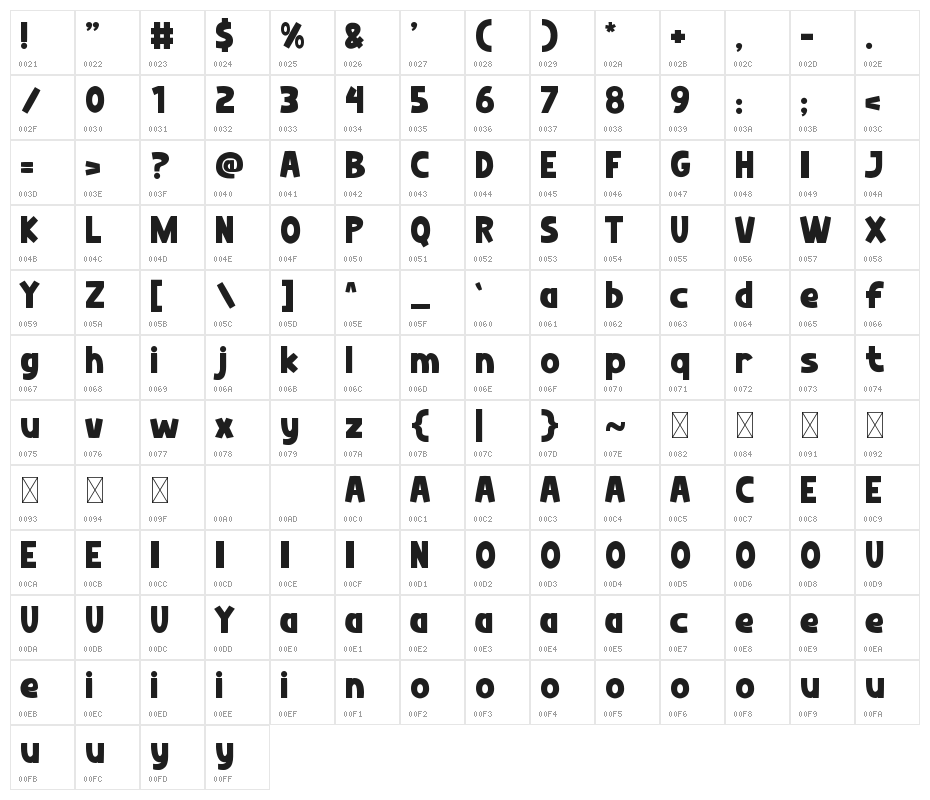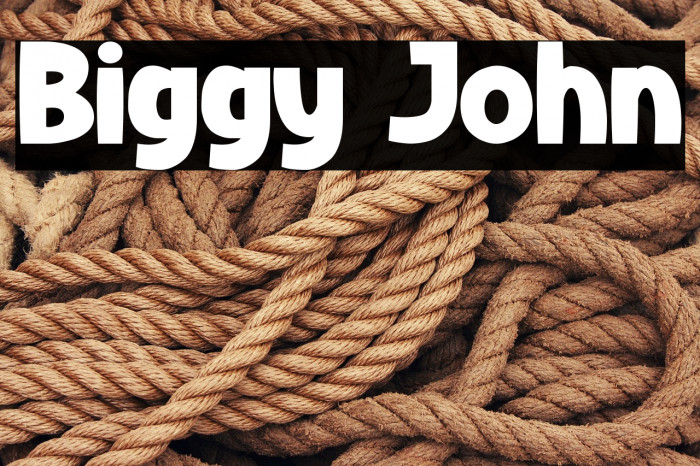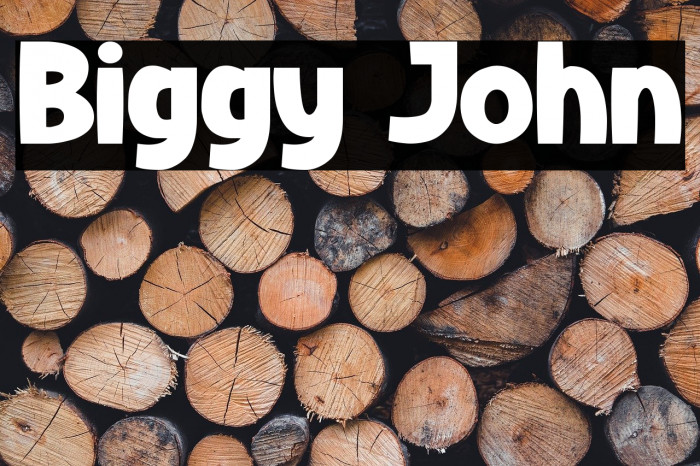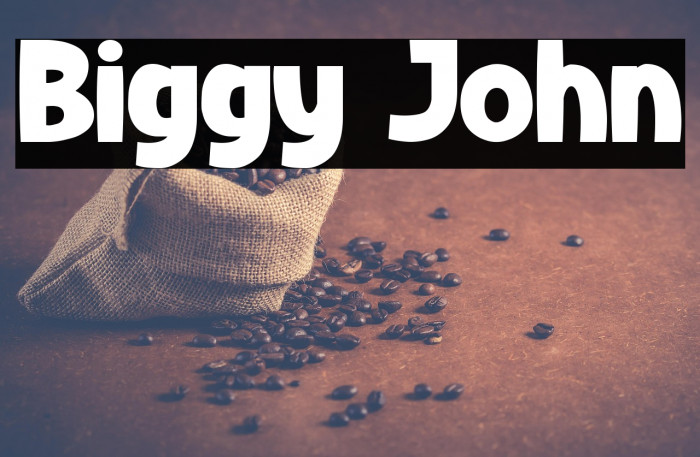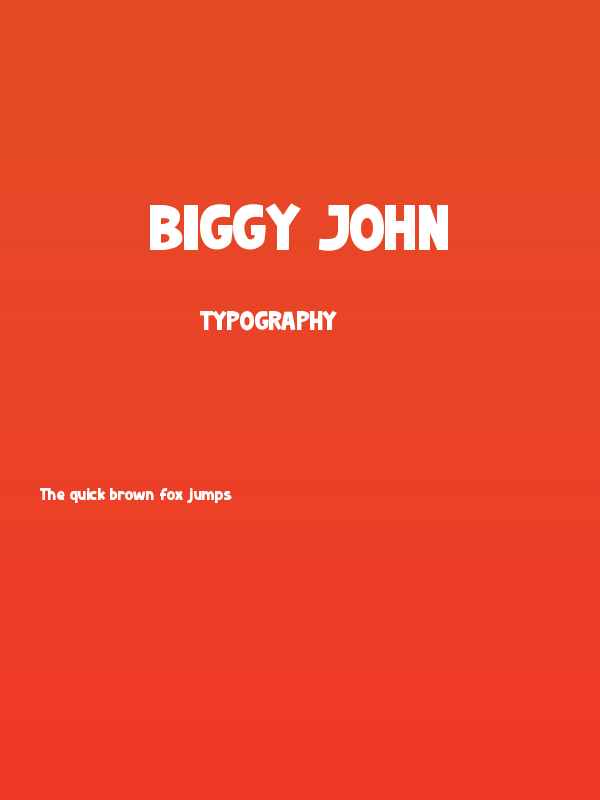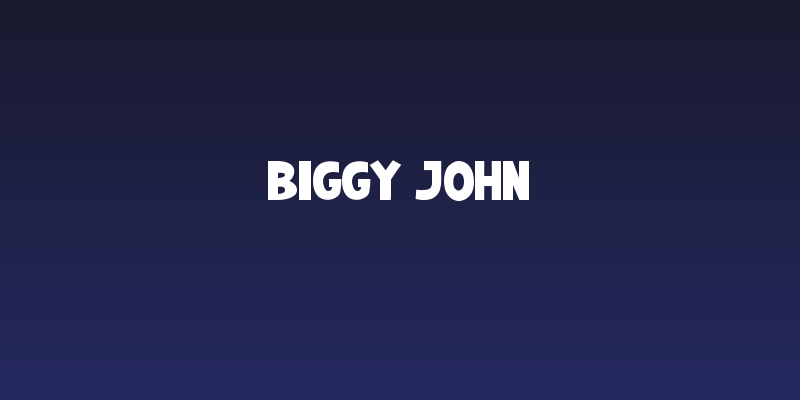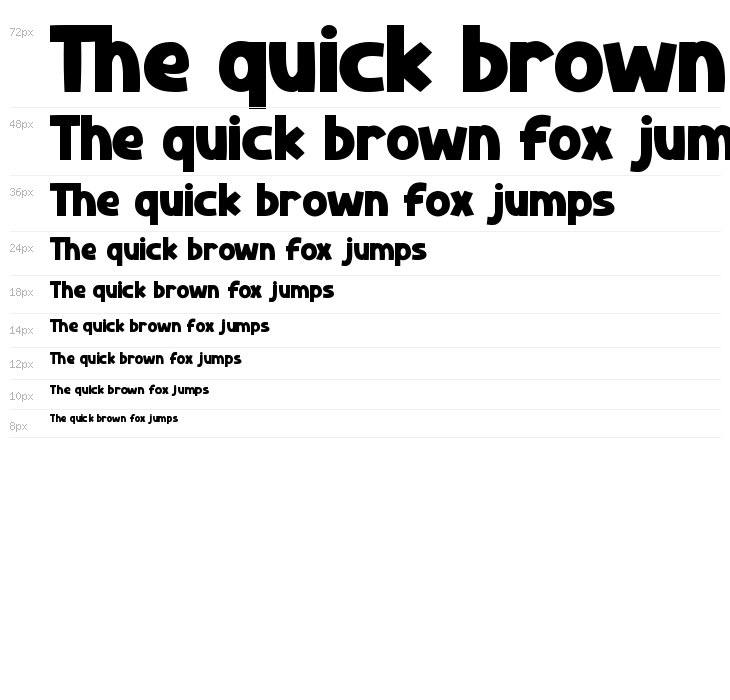
Biggy John Font
Biggy John Description
This font features a bold and playful design, characterized by its thick, rounded letterforms that convey a sense of warmth and approachability. The uppercase and lowercase letters maintain a consistent weight, creating a harmonious and cohesive look. The numerals and special characters are designed with the same boldness, ensuring uniformity across all text elements. The font's style is reminiscent of retro and vintage aesthetics, making it suitable for projects that aim to evoke nostalgia or a sense of fun. Its wide character spacing enhances readability, while the low contrast in stroke thickness adds to its bold appearance.
| Proposed Projects | Ideal for branding, posters, children's books, and any project seeking a fun, vintage feel. |